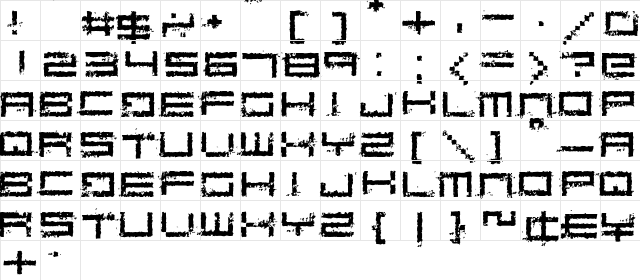
Rusting Robotica Regular
Design Context for Rusting Robotica Typeface
Rusting Robotica is a composed and adaptable typeface that performs quietly and consistently across a wide range of design contexts.